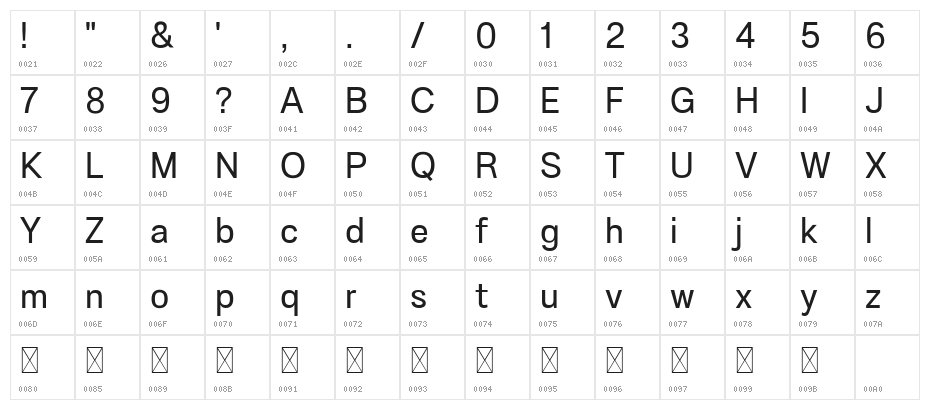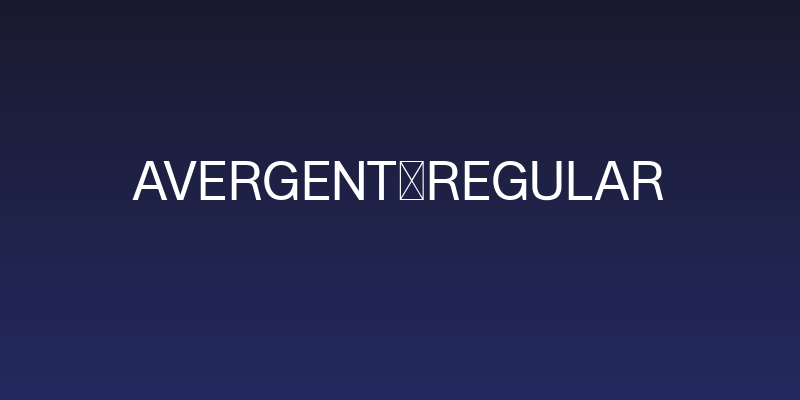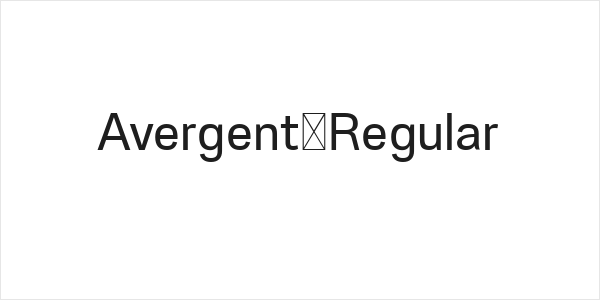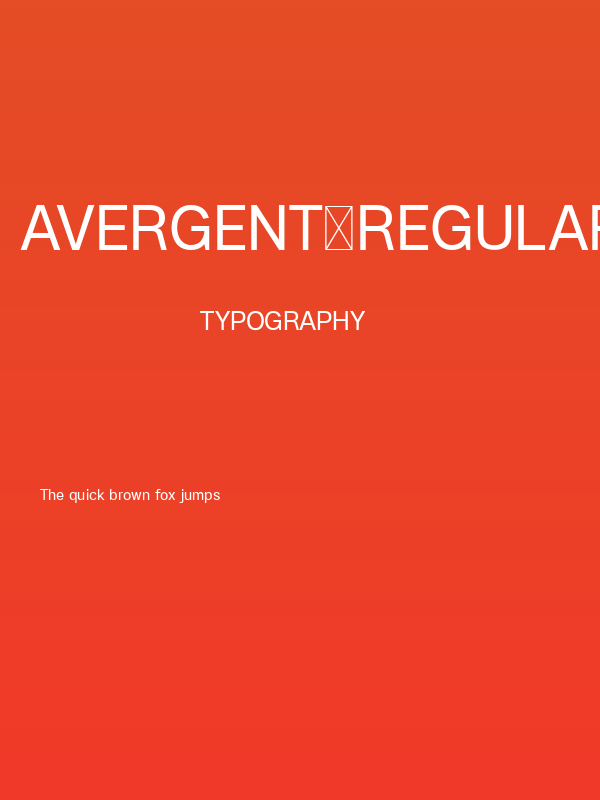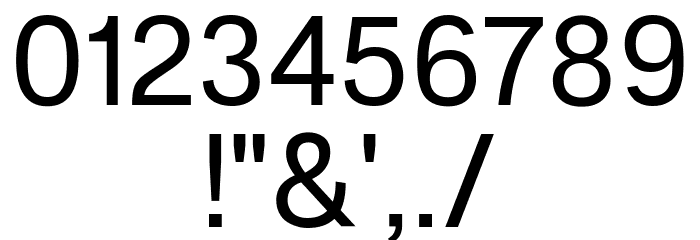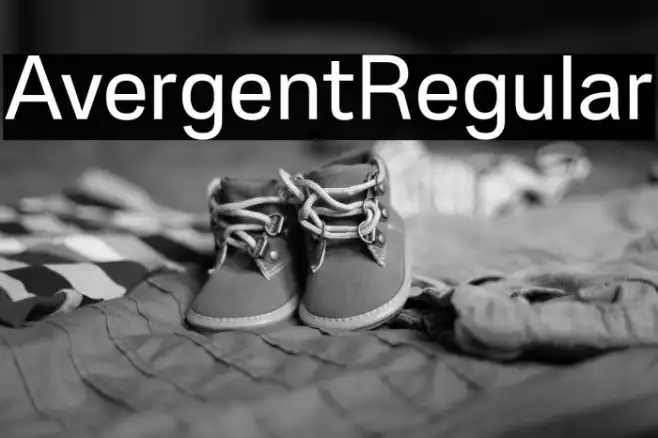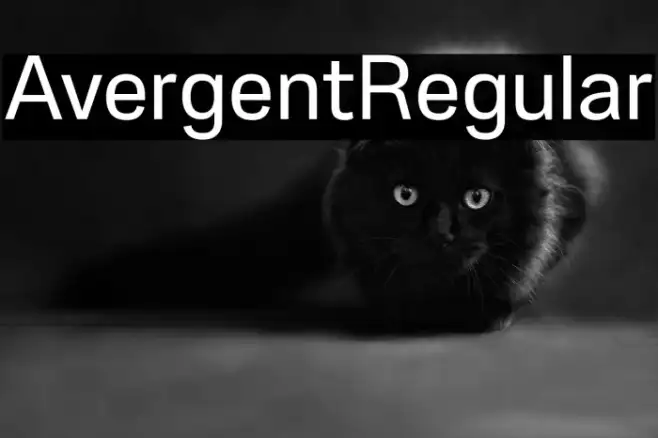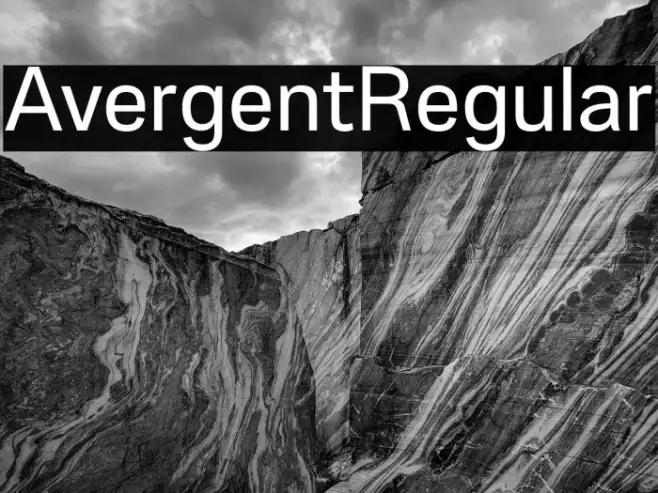
Avergent-Regular Font
Avergent-Regular Description
This font exhibits a clean and modern sans-serif style, characterized by its straightforward and geometric letterforms. The uniform stroke width and lack of serifs give it a contemporary and minimalist appearance. The uppercase and lowercase letters are well-proportioned, ensuring readability and clarity. The numerals are distinct and align well with the overall design, while the special characters maintain consistency with the font's aesthetic. This font is versatile, suitable for a wide range of applications where a modern and unobtrusive typeface is desired.
| Proposed Projects | Ideal for digital interfaces, corporate branding, advertising, and editorial design. |